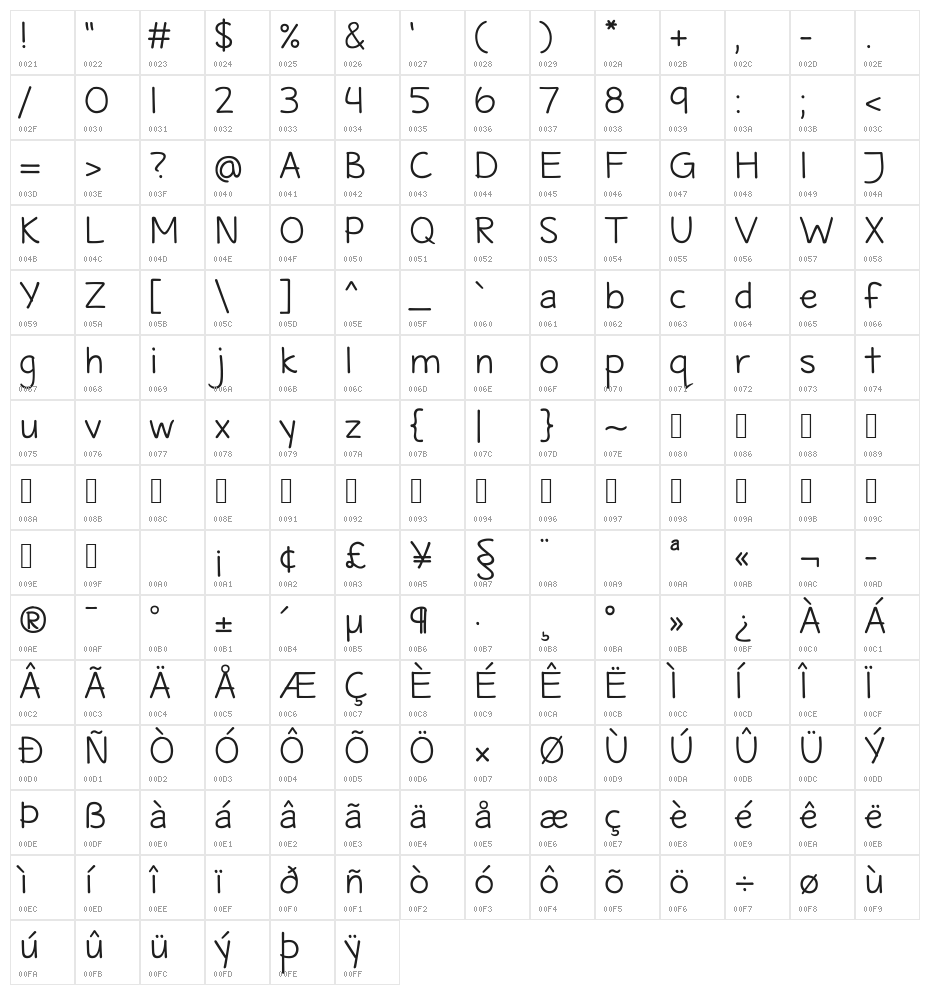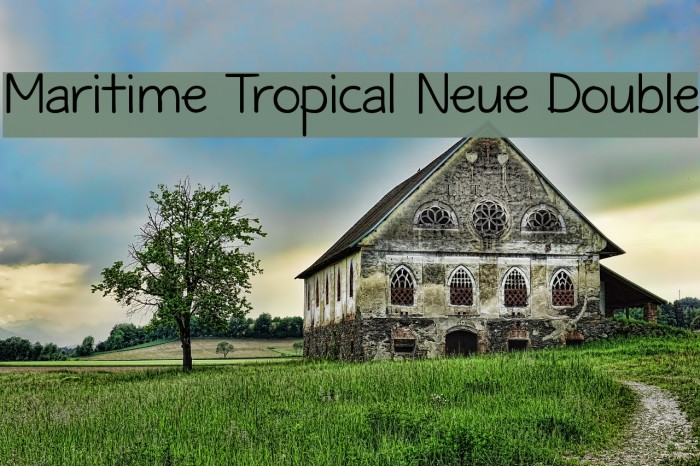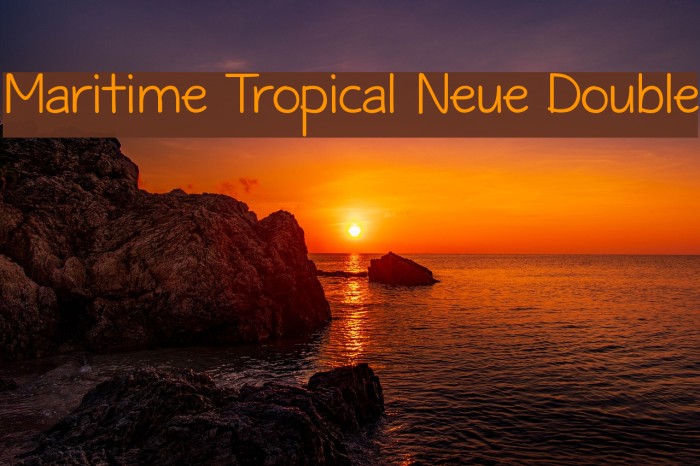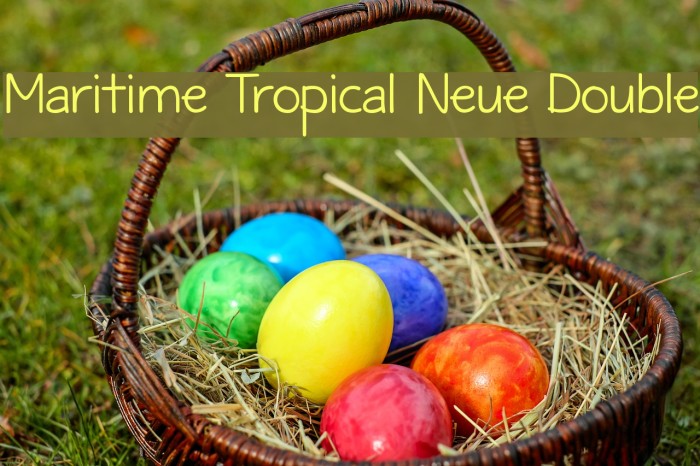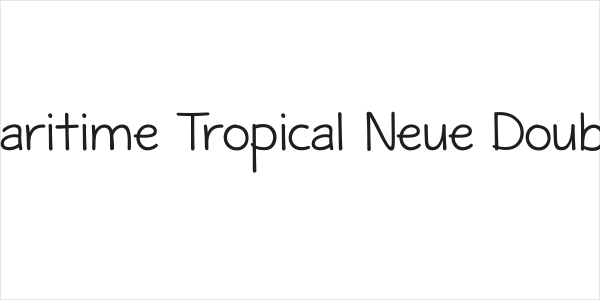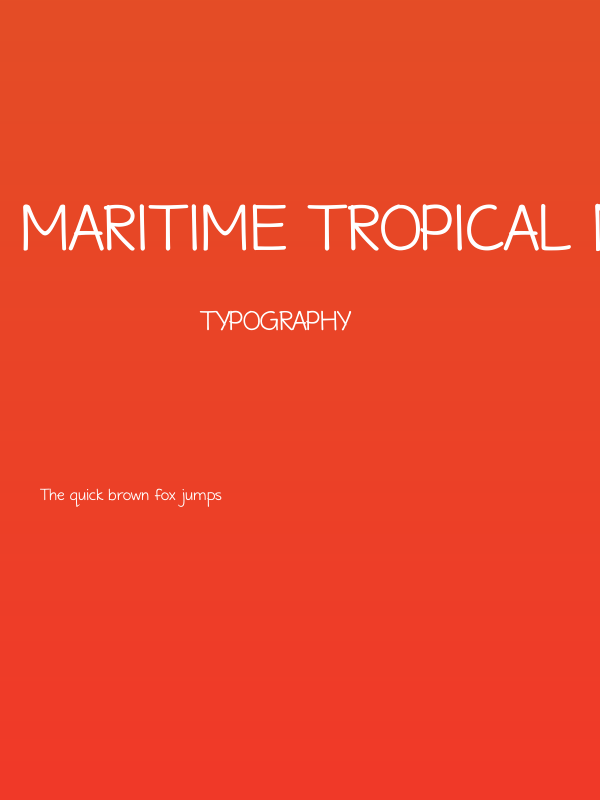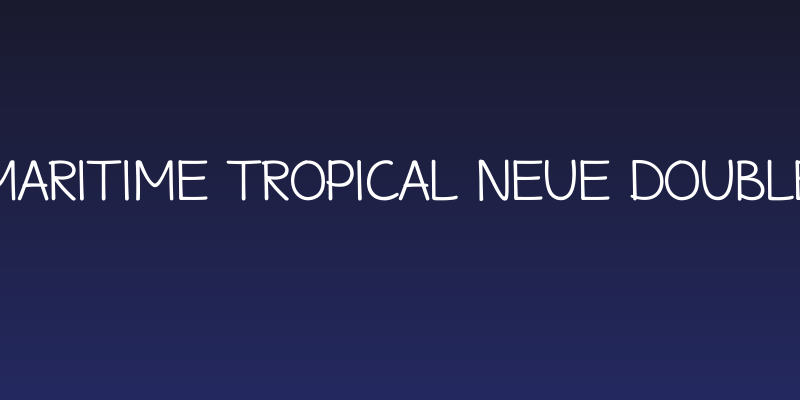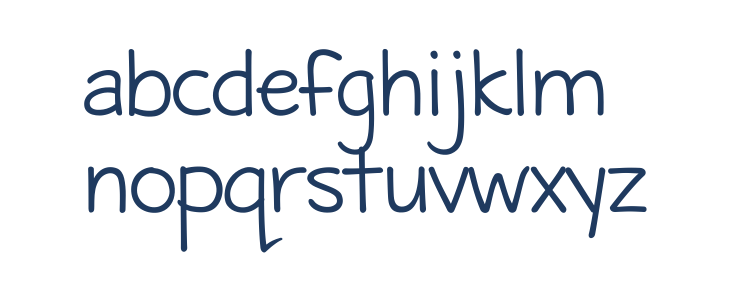
Maritime Tropical Neue Double Font
Maritime Tropical Neue Double Description
This font features a playful and rounded sans-serif style, characterized by its smooth curves and friendly appearance. The letters have a consistent stroke width, giving it a clean and modern look. The uppercase and lowercase letters are well-proportioned, with a slight emphasis on circular shapes, particularly noticeable in characters like 'o', 'p', and 'q'. The numerals are clear and legible, maintaining the same rounded aesthetic. Special characters are designed with the same attention to detail, ensuring uniformity across the font. This font's approachable and casual style makes it versatile for various design applications.
| Proposed Projects | Ideal for children's books, casual branding, playful posters, and social media graphics. |